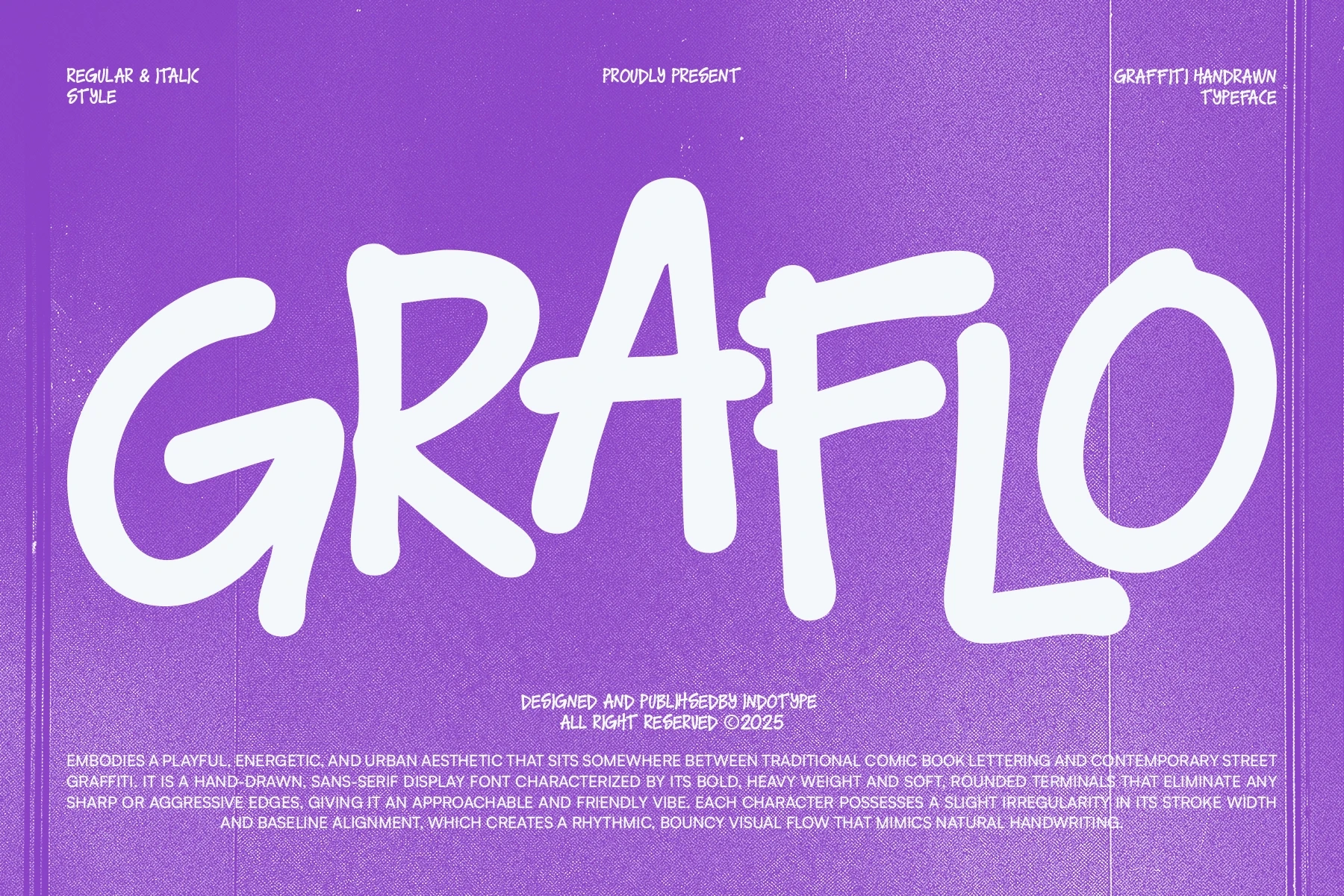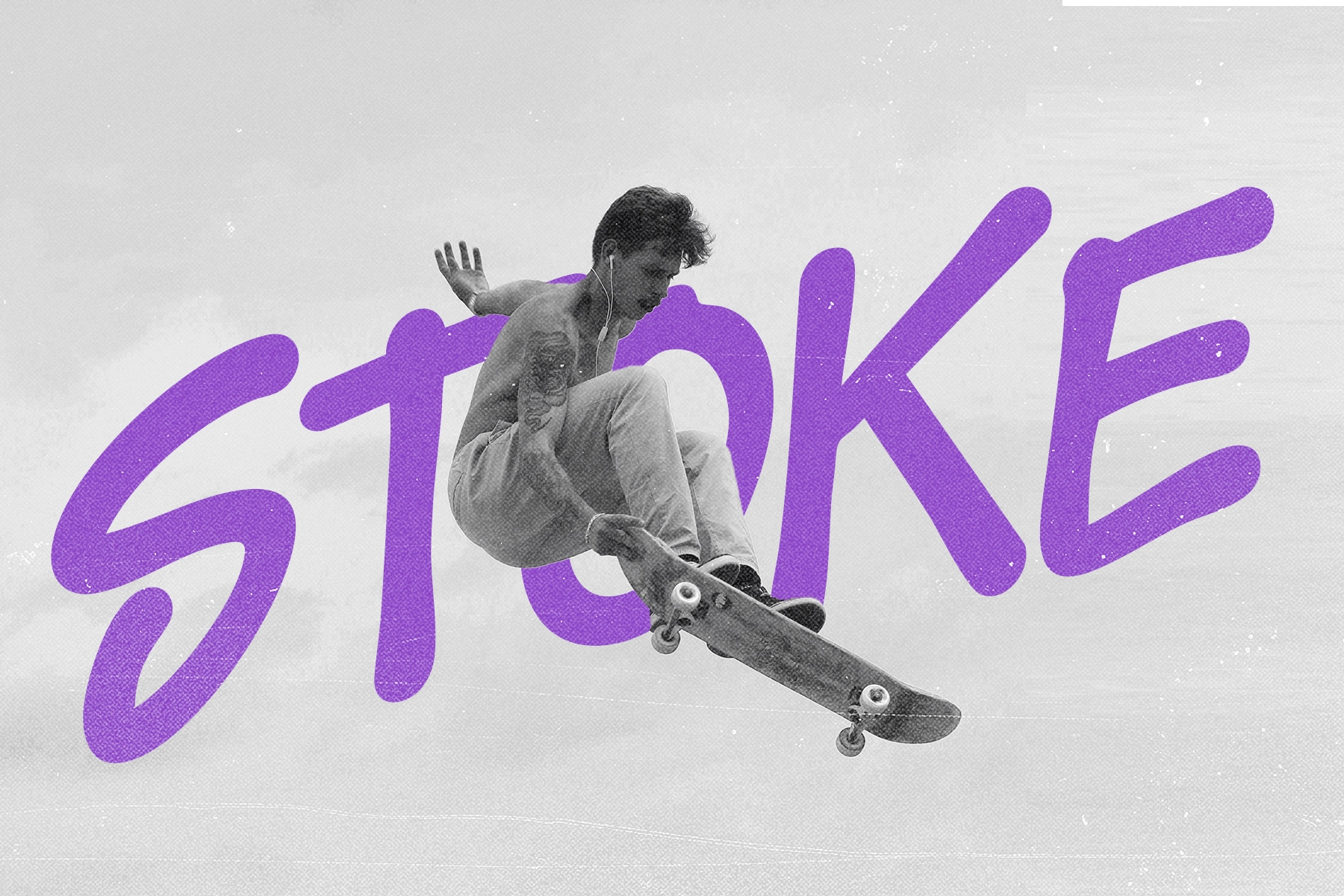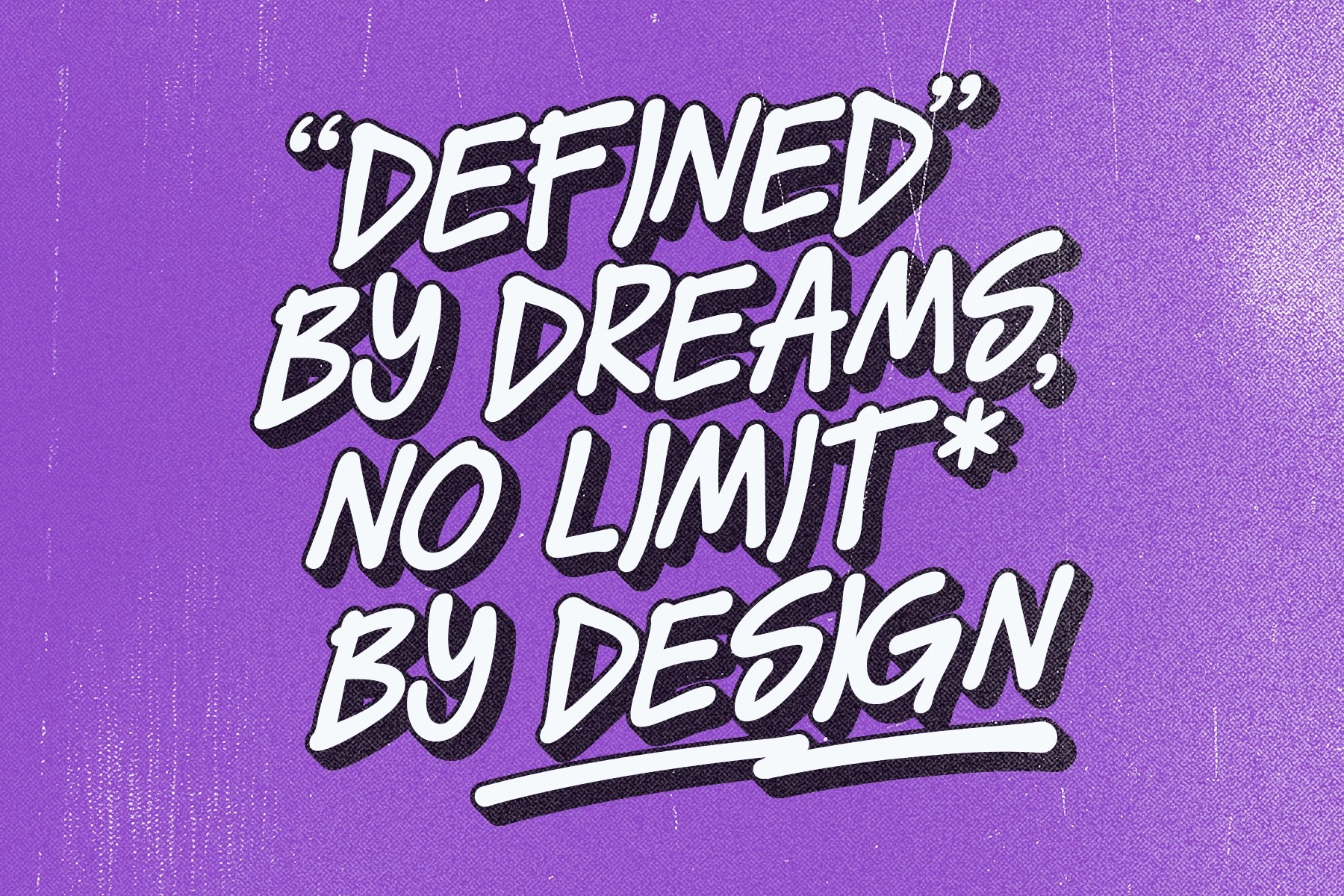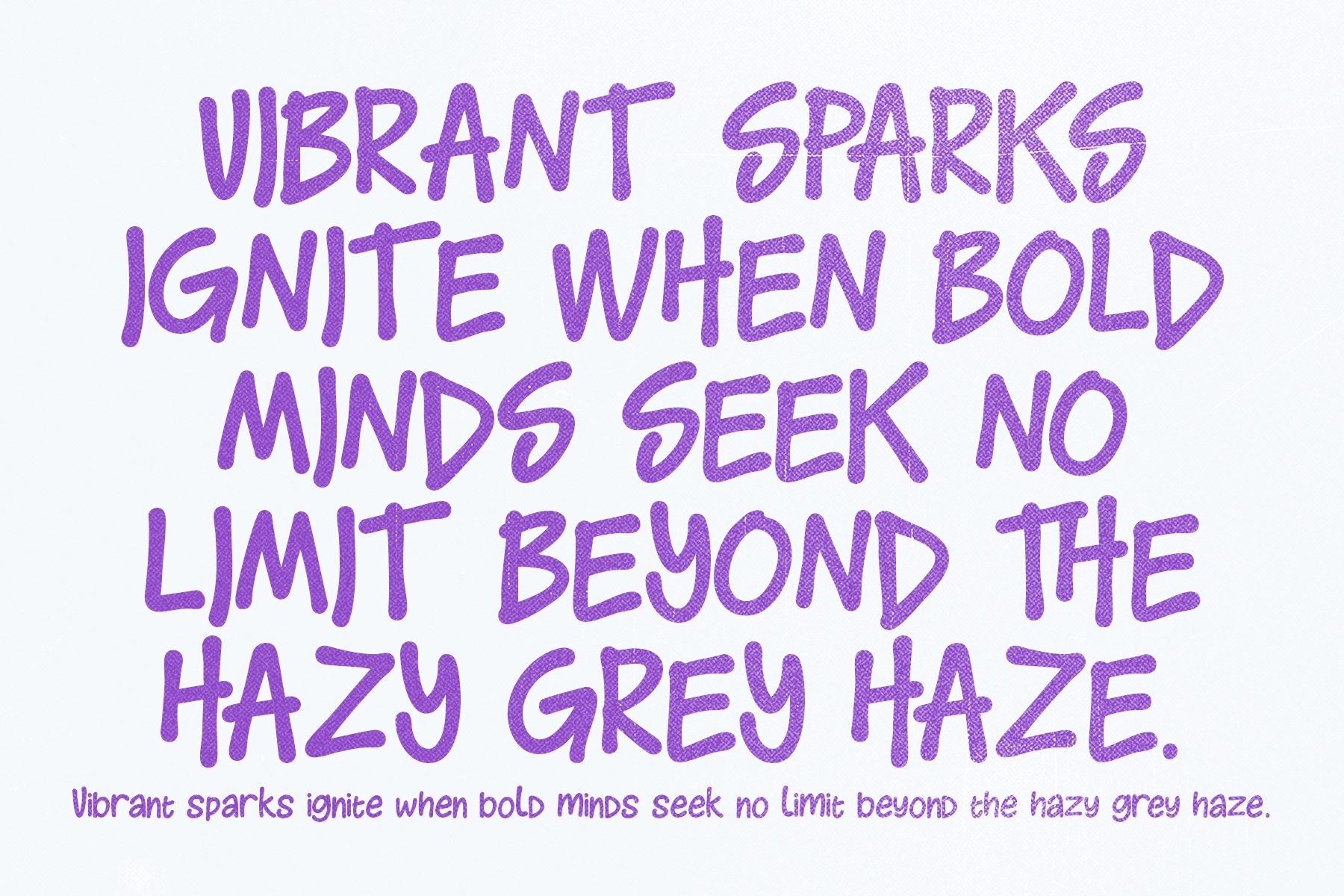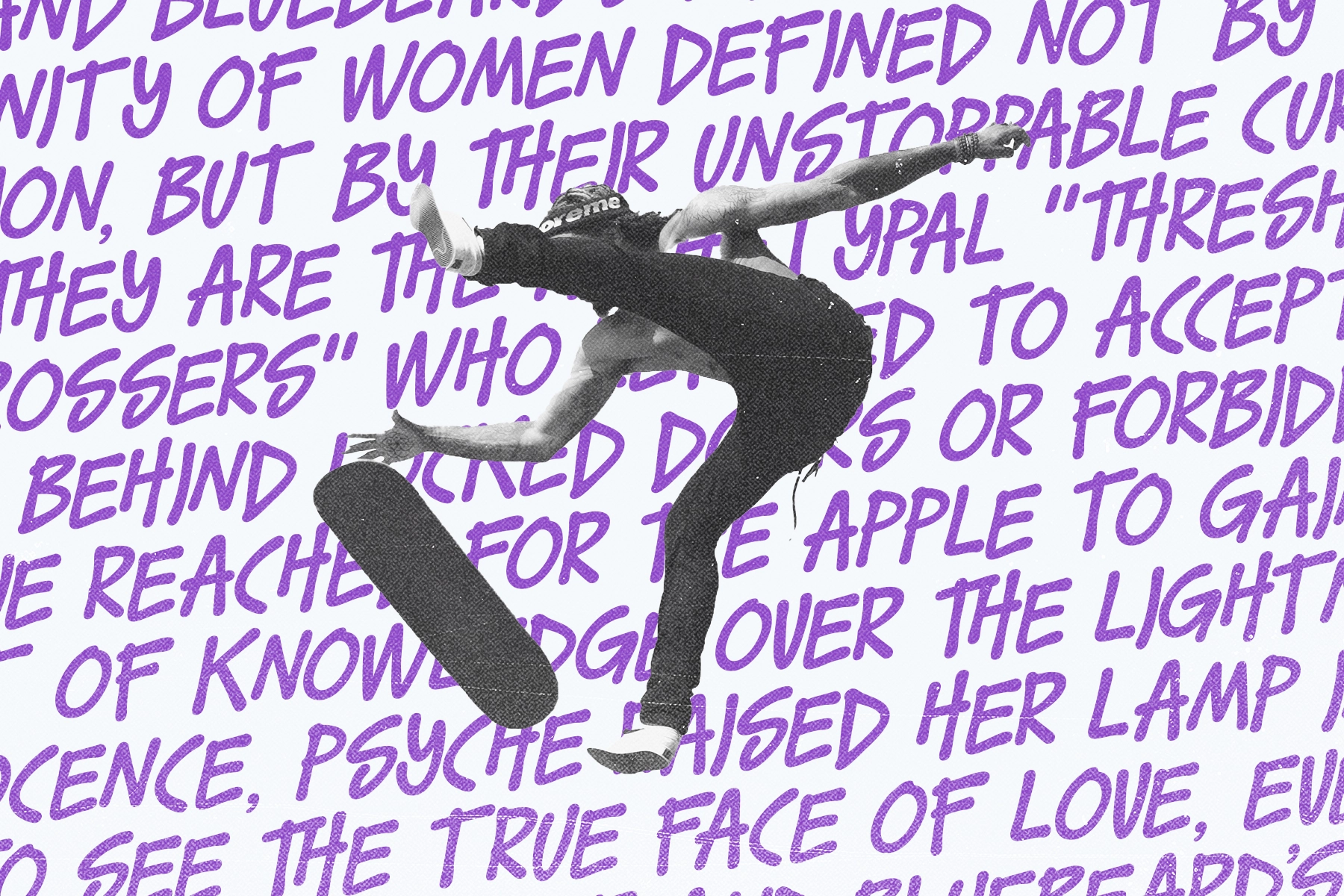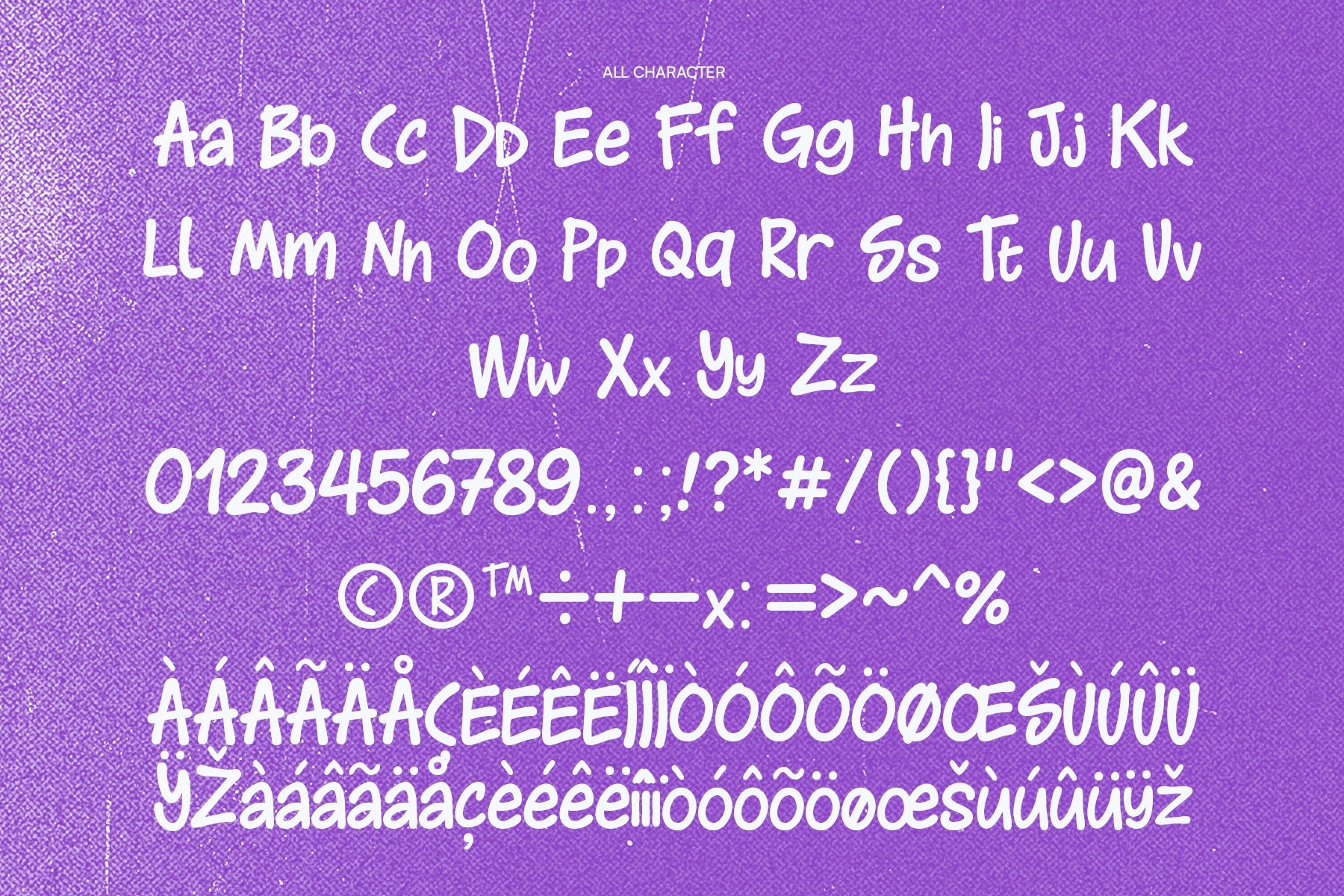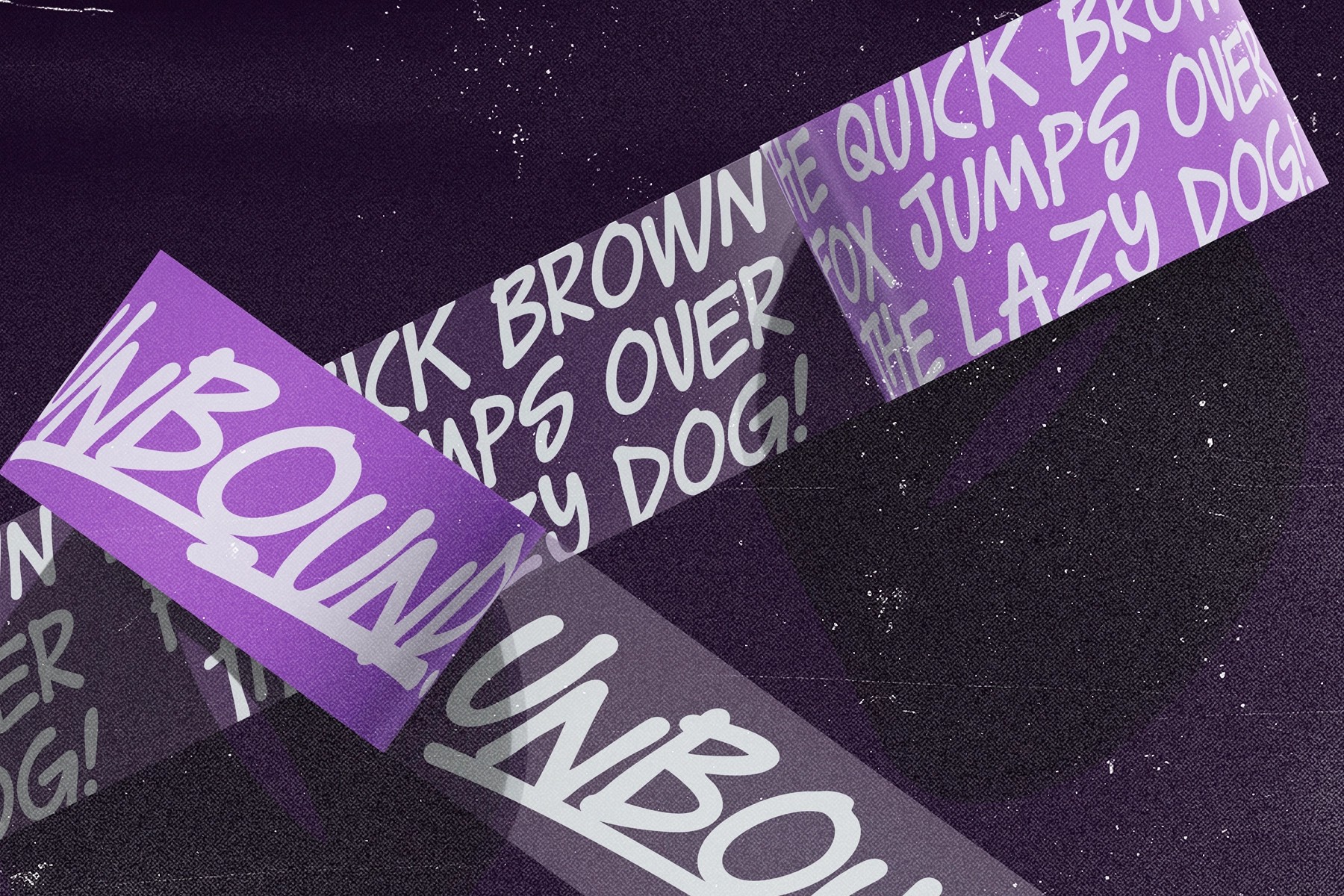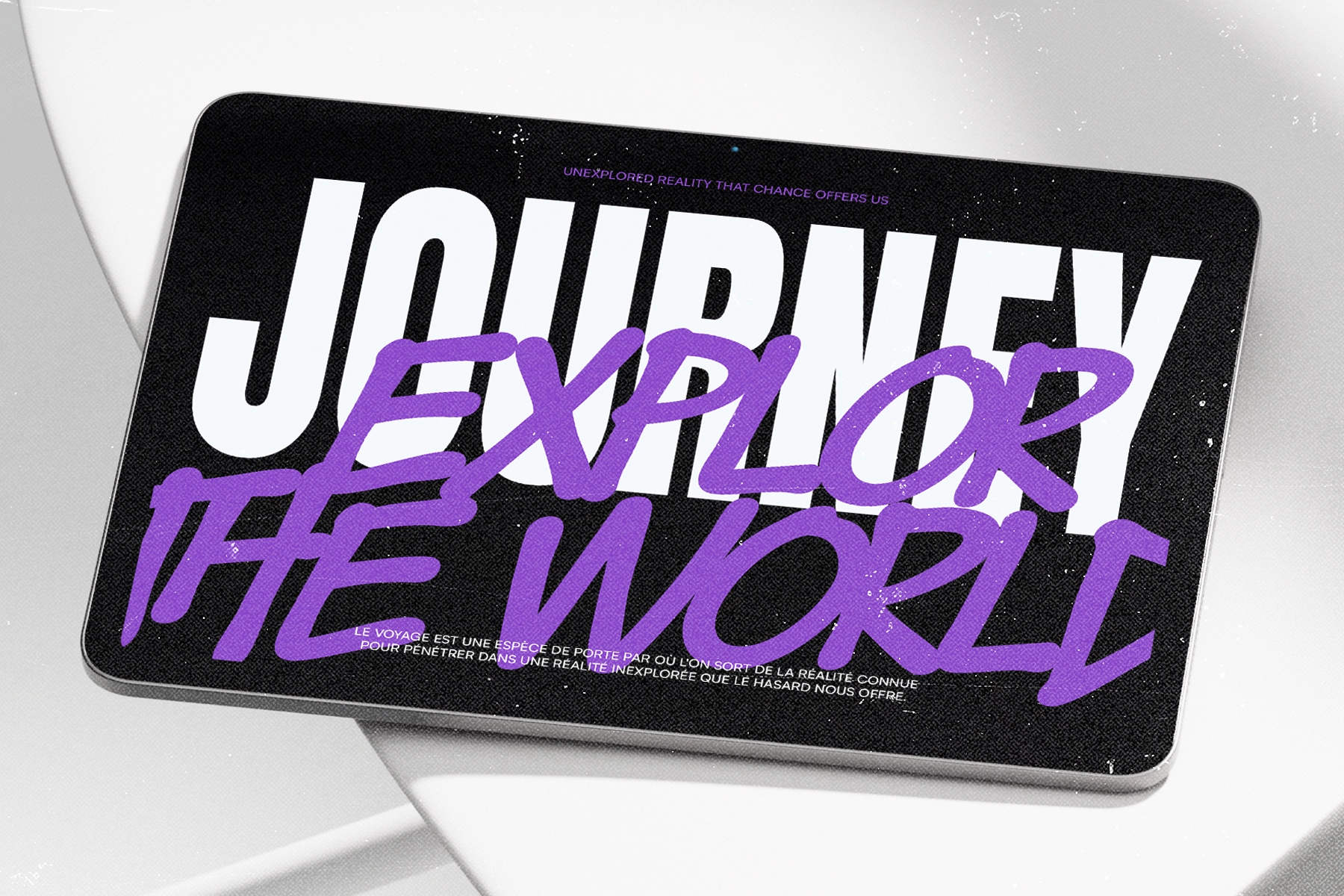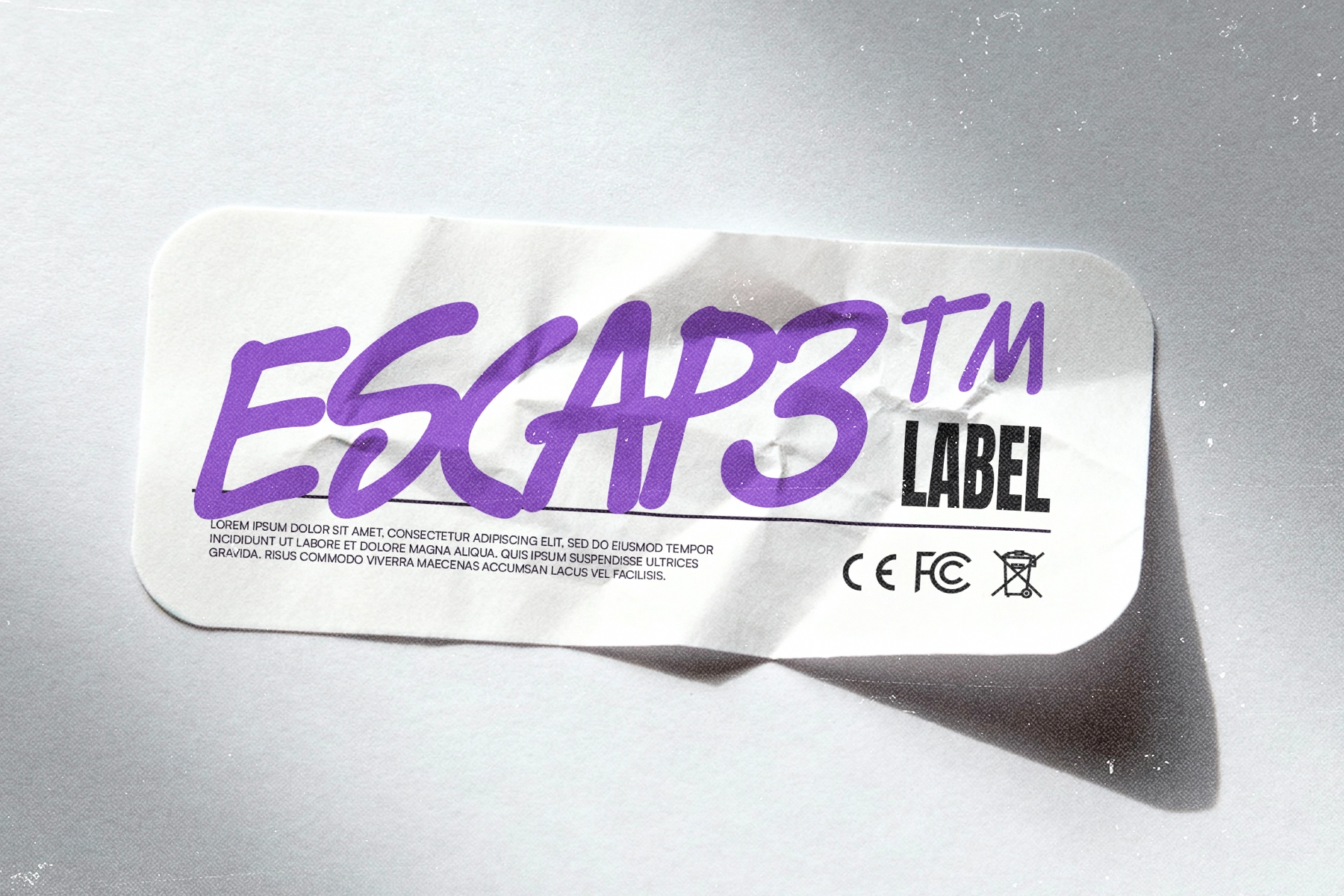
GRAFLO - Hand-Drawn Graffiti Font
Graflo sits between comic-book lettering and street graffiti, built from thick rounded strokes with soft terminals that strip out the aggression usually attached to spray-can type. Stroke width and baseline shift slightly from letter to letter, giving this graffiti font a bouncy, handwritten rhythm instead of a uniform, stamped-out look. The Italic companion leans the same shapes into a looser, more energetic angle.
Graflo holds up at both poster scale and small social crops, with enough weight to anchor a layout on its own. Use it for streetwear branding, event posters, creative logos, comic-style lettering, YouTube thumbnails, and packaging that wants an urban, handcrafted edge.
- 2 styles: Regular, Italic;
- uppercase & lowercase;
- numerals, punctuation & symbols;